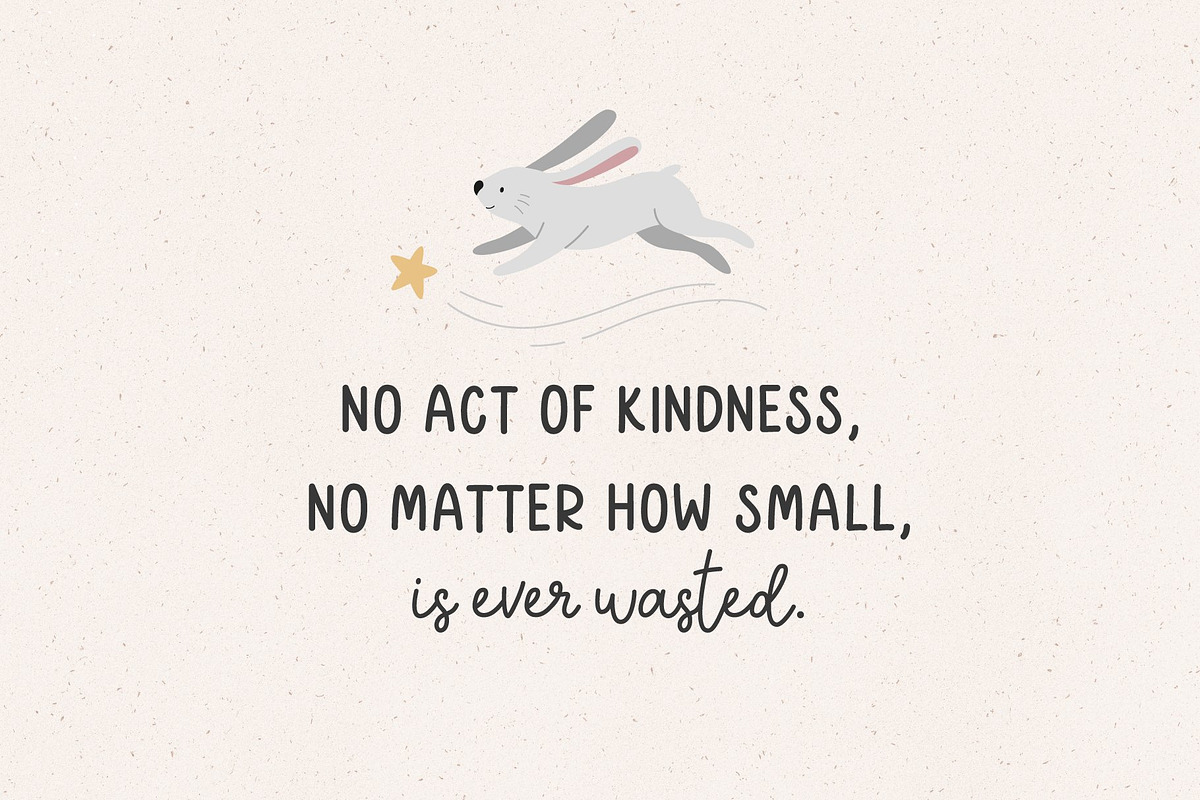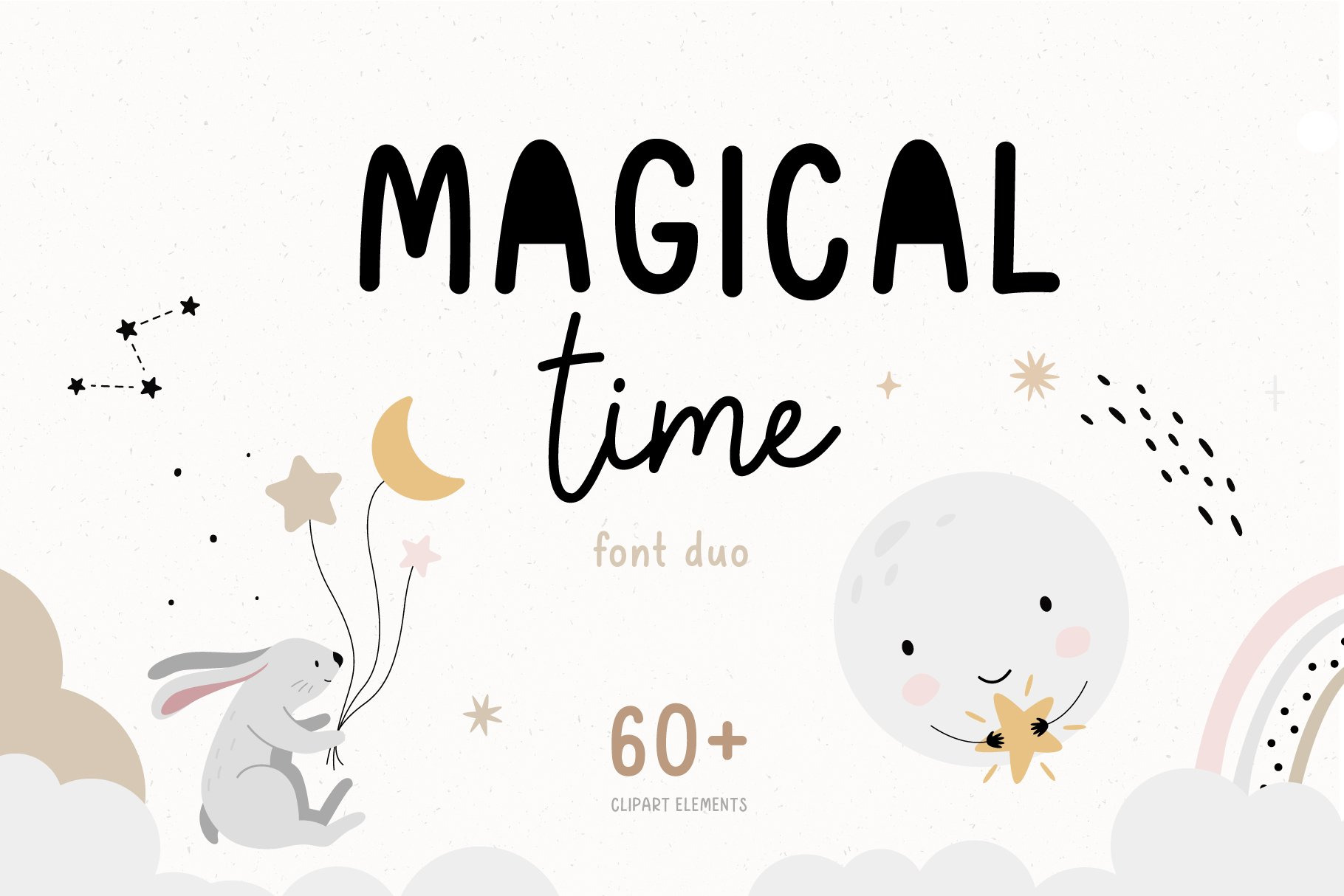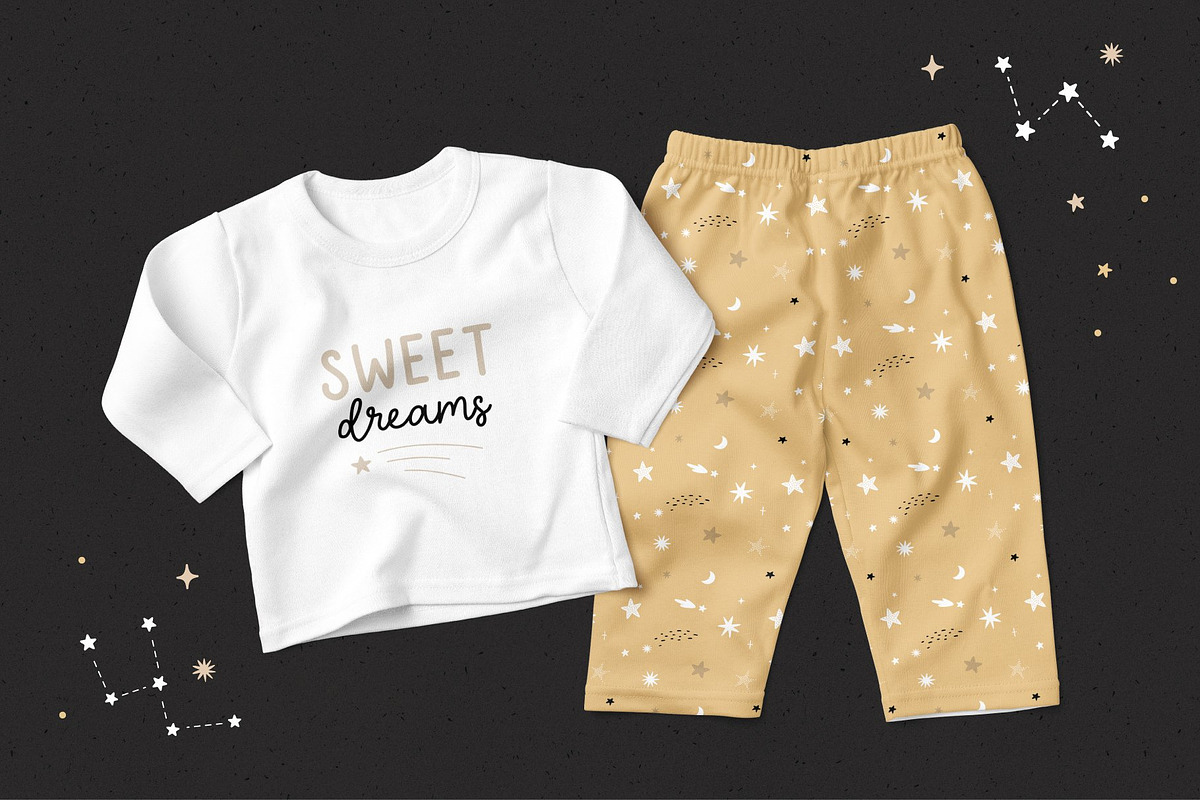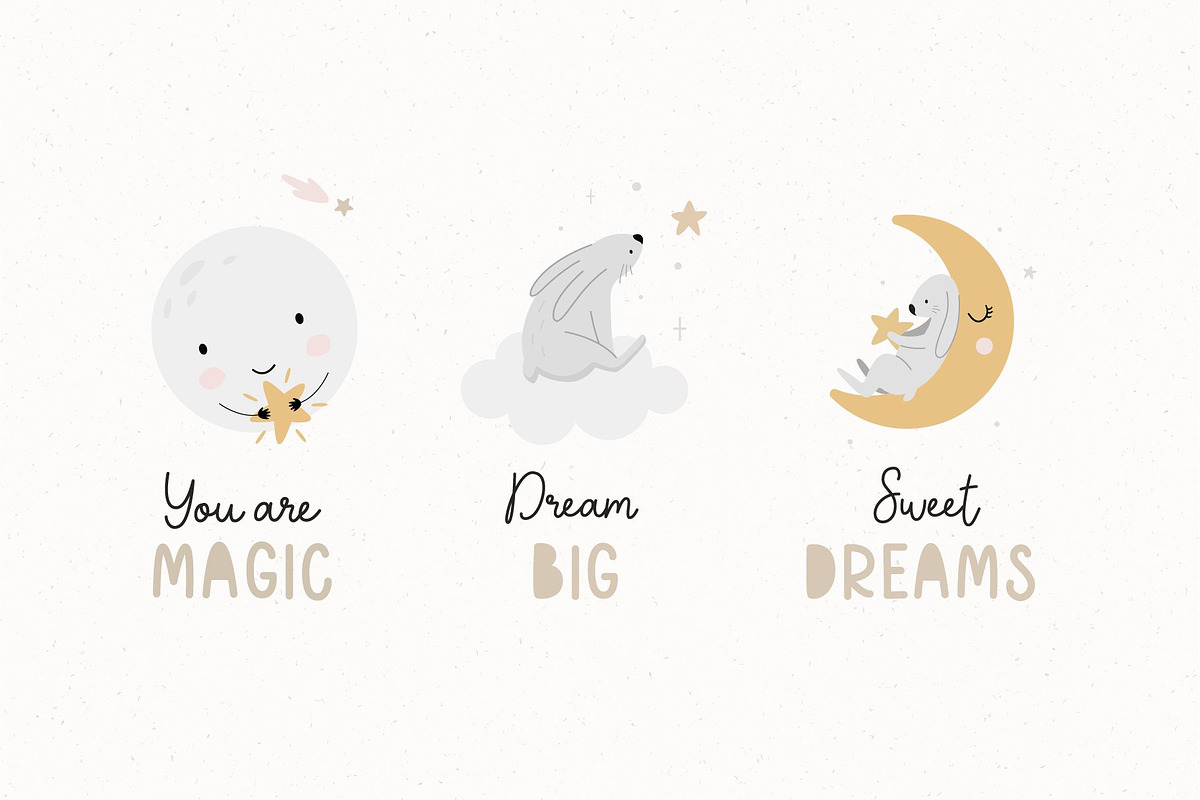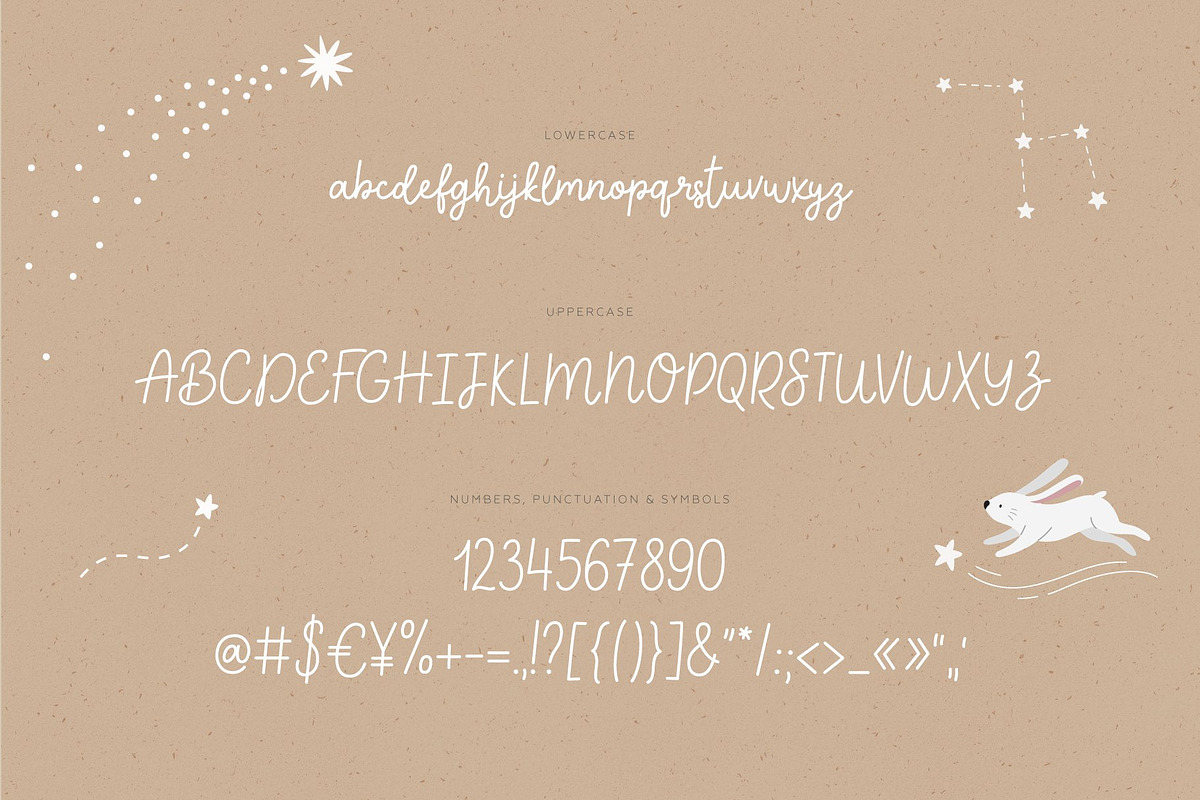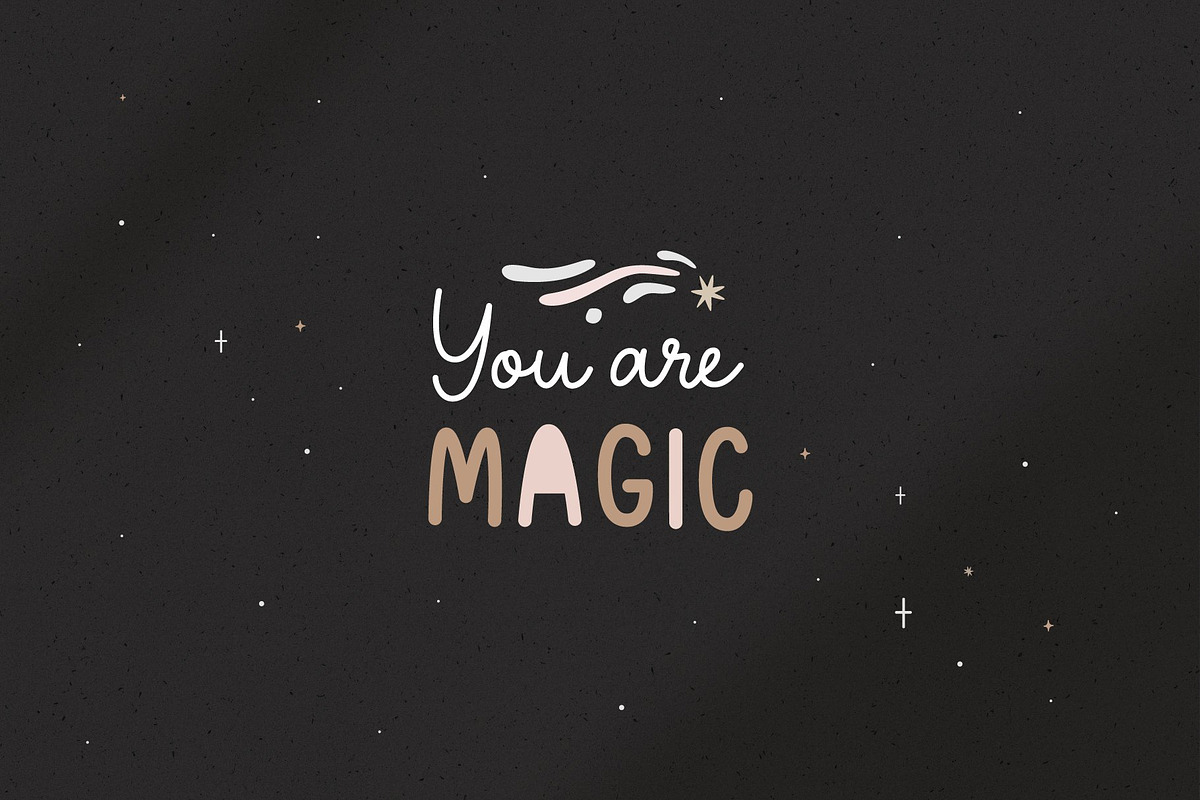
Magical time | Font duo
Enjoy over 60 elements with rabbits, stars, moons, rainbows. Magical illustrations will be perfect for books, greeting cards, posters, baby clothing, picture books or anything that requires a fun and happiness look!